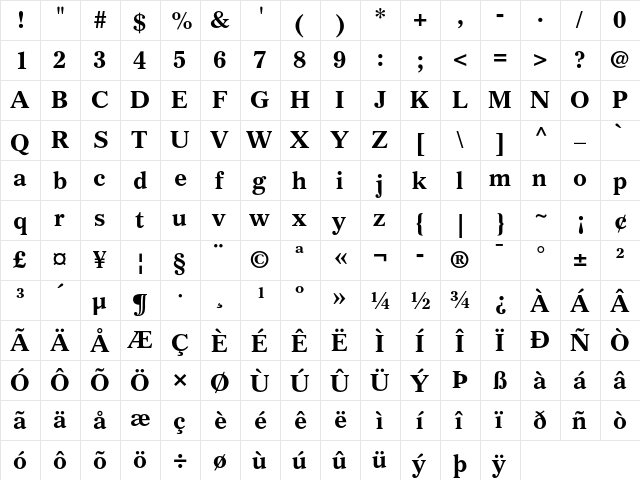
Gazette LH Bold
Design Context for Gazette LH Typeface
Gazette LH takes a measured approach to typography — its balanced proportions and neutral character make it a reliable workhorse for both digital and print work. Its bold stroke weight gives it real presence on the page.
Pro Tip: Pair Gazette LH with a font of contrasting weight or personality to build a more expressive typographic hierarchy.